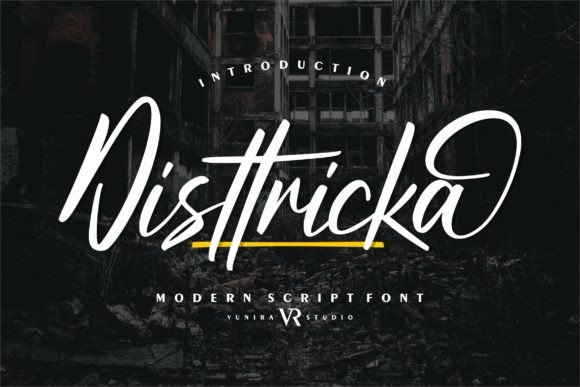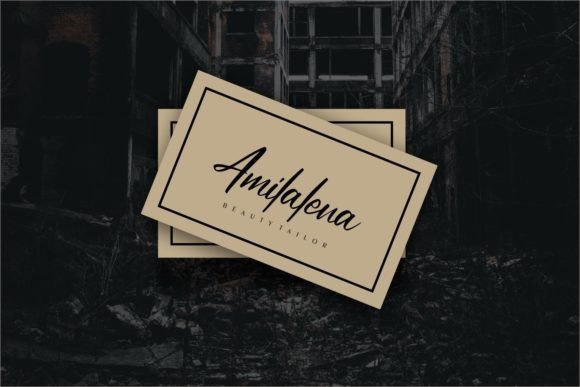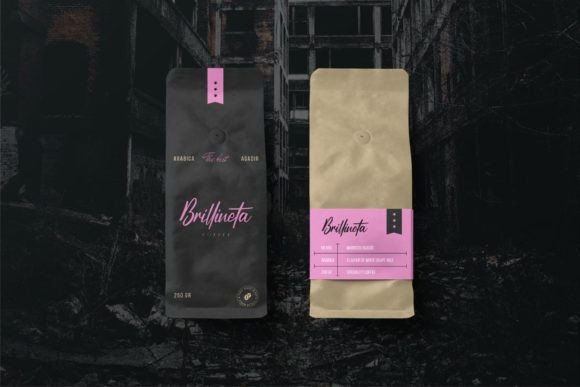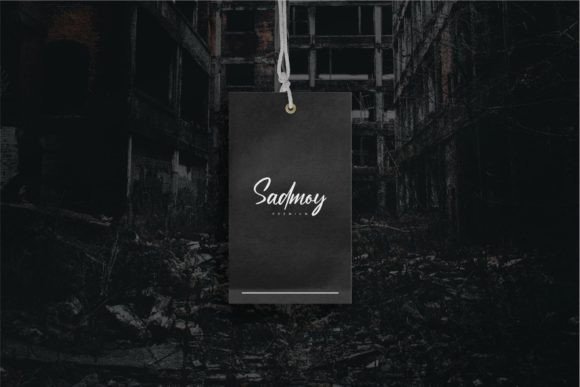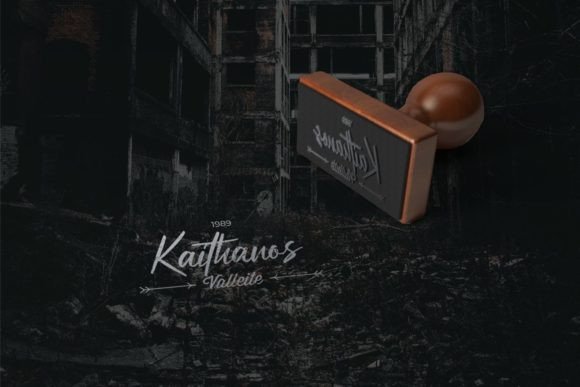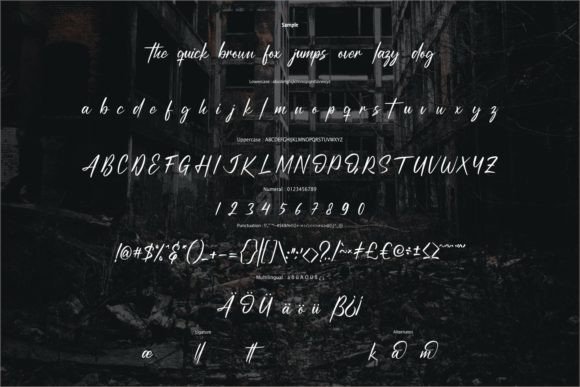
Disttricka Font
A Modern and Cool Handwritten Script
Disttricka is a modern handwritten script font designed to make your designs stand out with its bold, unique character. With smooth curves and well-crafted strokes, this font offers a perfect balance between contemporary coolness and timeless elegance.
Whether you’re designing a logo, invitation, or social media graphic, Disttricka brings a modern, creative touch to your work. Its distinctive style makes it the perfect font for any project that needs to feel fresh, stylish, and personalized.
Disttricka is incredibly versatile, suitable for a wide range of design applications. It’s perfect for creating logos, business cards, and branding materials. The bold and stylish design gives your brand a unique look that will stand out and leave a lasting impression.
This font is also great for wedding invitations, greeting cards, and event signage. Its modern and cool style adds an exciting yet elegant touch to any special occasion, making your invitations and messages more memorable.
Disttricka is ideal for social media graphics, website headers, and digital marketing materials. Its cool design ensures that your content grabs attention and makes an impact across various platforms.
Despite its artistic style, Disttricka remains highly legible. The carefully balanced spacing and smooth strokes ensure that your text is easy to read, whether it’s used for large headlines or smaller body text.
Pair Disttricka with a clean sans-serif font for contrast. Use Disttricka for titles and combine it with a minimalist font for the rest of the text. This creates a visually striking and readable design that is both modern and stylish.
To highlight Disttricka’s bold style, use clean, minimalist layouts and vibrant color schemes. Shades like deep blues, bright yellows, or soft pastels work well with the font’s distinctive look, allowing the text to pop without overwhelming the design.
For wedding designs, luxury branding, or social media content, consider adding subtle geometric patterns or minimalist accents to complement the font’s modern feel. Keep the layout simple to allow Disttricka to shine as the focal point of the design.
Think about the atmosphere you want to create. Disttricka is perfect for designs that should feel bold, modern, and chic, with a hint of creativity and sophistication.
Disttricka is more than just a cool handwritten script font. It’s a powerful creative tool that brings personality and flair to any design. Its versatility ensures it works for a wide variety of projects, from logos to invitations.
Adding Disttricka to your font collection means you’ll always have a stylish, modern option available for your design needs. Whether you’re working on branding, marketing materials, or personal projects, this font will elevate your work with its unique and cool style.